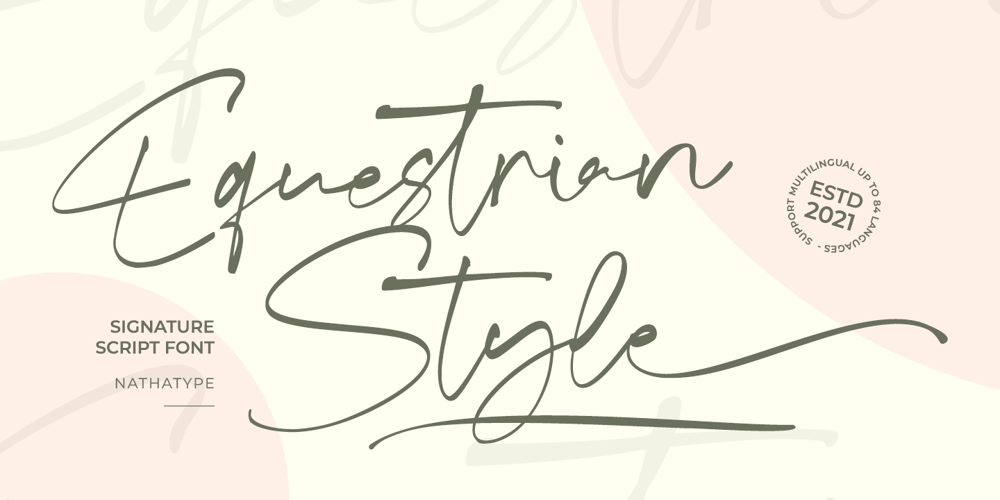
Equestrian Style Font Family was designed by Donis Miftahudin and published by Nathatype. Equestrian Style contains 1 styles and family package options. Wanna make your branding spark? Looking for a gorgeous and stylish font? If you need to create a big, bold logo for your business, work on a poster for an event, or whatever your project may be-then we’ve got what you want.Equestrian Style – A Signature FontEquestrian Style is a handcrafted font designed to bring your branding to life and add a touch of elegance, modernity, and style. Every swash, stroke, and curve was created to entice happiness and elegance. The best choice for your logo, book cover, poster, t-shirt, branding, and advertisement needs.Features: Ligatures Stylistic Set Swashes PUA Encoded Numerals and Punctuation Thank you for downloading premium fonts from Nathatype